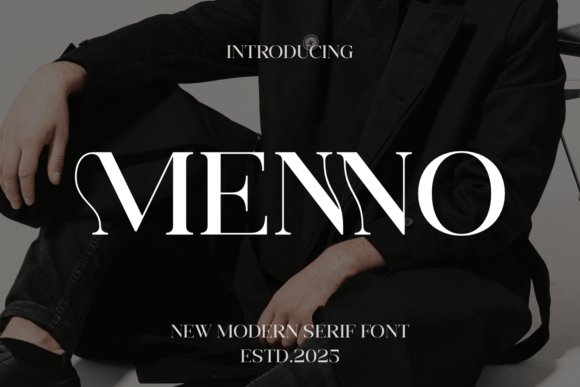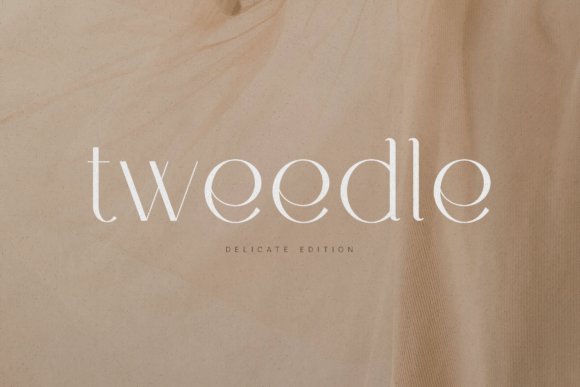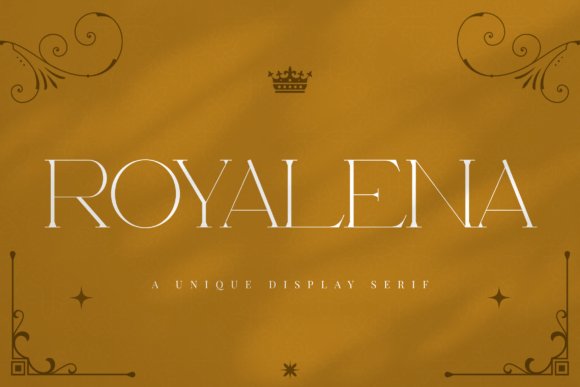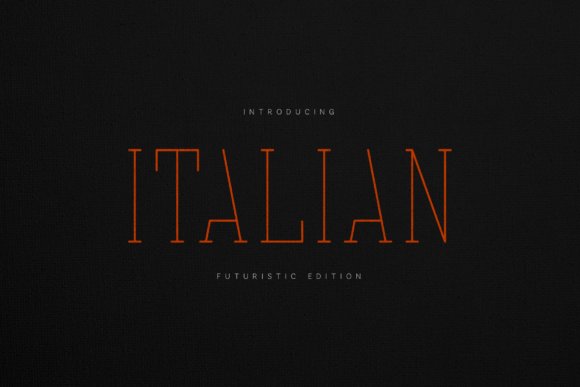
51 Elegant Apparel Fonts for Luxury Clothing Labels 2026
Choosing the right typography defines how people perceive your clothing line. This list of 51 Apparel Fonts provides a wide range of styles to help your merchandise stand out in a crowded market. Whether you want a rugged look or a sophisticated finish, these typefaces offer the character needed for professional results.
Success in the fashion industry often relies on visual impact. Each selection here works well on fabric, ensuring your message remains legible and striking after printing. You can apply these styles to hoodies, hats, and retail tags for a cohesive look across your entire 2026 inventory.
Finding a balance between readability and artistic flair is key. Many of these options include unique ligatures and alternative characters to give your work a custom feel without extra effort. Let’s look at the top choices available for your next creative project.
1. Menno Serif Font
Menno Serif Font – Menno stands out as a high-contrast serif typeface that captures the spirit of high fashion. Its razor-thin lines and sharp terminals create a visual rhythm that feels expensive and intentional. This font family works exceptionally well for boutique branding where a clean, minimal look is the top priority.
Designers seeking distinctive Apparel Fonts will find the stylized M and N characters particularly useful for logotype creation. The balance between classic structures and modern flair ensures your layouts look sophisticated without feeling dated. It provides a sharp, editorial finish to any digital or print media project.
2. Tweedle Delicate Serif Font
Tweedle Delicate Serif Font – Tweedle Delicate offers a softer approach to luxury with its airy letterforms and gentle curves. The Delicate Edition specifically focuses on ultra-thin hairlines that contrast beautifully against its rounded stems. This creates a weightless appearance that suits beauty brands and high-end stationery perfectly.
Wide letter spacing and open counters give this typeface an inviting yet exclusive feel. It avoids the harshness of traditional modern serifs by incorporating subtle, fluid transitions between strokes. You can rely on this style for magazine headers or premium cosmetic packaging that requires a quiet, graceful presence.
3. Royalena Display Serif Font
Royalena Display Serif Font – Royalena makes a bold statement through its extreme verticality and slender proportions. These elongated forms draw the eye upward, mimicking the stature of luxury architecture or runway silhouettes. The high-contrast design ensures that large-scale headlines command attention with a sense of pure opulence.
Its PUA-encoded nature means accessing decorative swashes and alternate glyphs is straightforward for any creative person. The typeface brings a sense of high-class refinement to wedding invites or jewelry branding. Every character reflects a commitment to quality, making it a top choice for projects that need to feel rare and prestigious.
4. Italian Font
Italian Font brings a sharp, technical precision to editorial projects. Its elongated proportions and minimal contrast create a rhythm that feels both architectural and calm. Designers often select these types of Apparel Fonts to establish a sophisticated identity for luxury brands that value progressive aesthetics over traditional curves.
This typeface excels in high-fashion layouts where titles need to feel intelligent and light. The sharp terminals offer a distinct edge, making it a strong choice for posters or digital interfaces. It maintains a clean look across various platforms while providing enough personality to stand out in a crowded market.
5. Mirevielle Font
Mirevielle Font mimics the natural motion of a personal signature with its flowing connections and delicate weight. Each character features specific details like elongated loops and smooth ligatures that prevent a mechanical appearance. This script works remarkably well for perfume labels and high-end packaging where a human touch adds perceived value.
The soft presence of this typeface helps wedding stationery and editorial titles achieve an air of unpretentious grace. It offers creative flexibility through a variety of swashes and alternates, allowing for a custom-written feel. By avoiding heavy weights, it preserves a sense of light luxury that remains legible and stylish.
6. Monday Boulevard Font
Monday Boulevard Font focuses on geometric balance and monoline strokes to deliver a contemporary typographic voice. Its airy proportions allow for significant letter spacing, which results in a serene and intentional layout. This makes it a preferred option for minimalist posters and web headers that require a clear, uncluttered message.
The construction of these letterforms relies on simplicity, stripping away excess to highlight the purity of the shapes. It functions exceptionally well in luxury packaging and modern identity systems where the goal is a quiet but confident presence. The thin lines ensure that even large-scale headlines feel sophisticated rather than overwhelming.